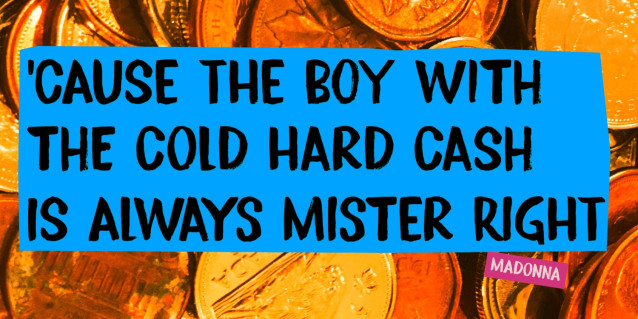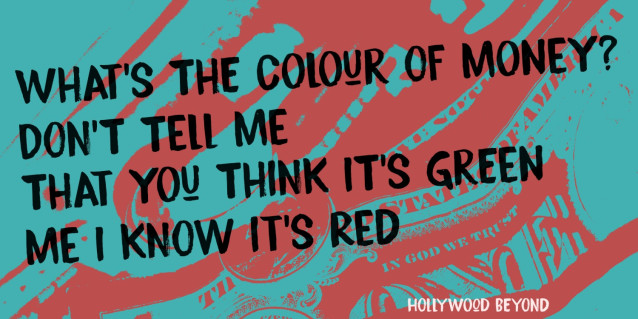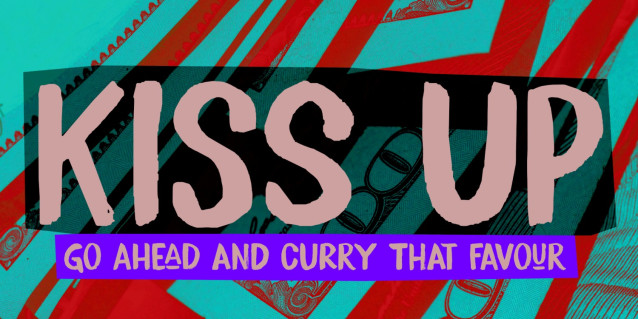
Kiss Up Font
Kiss Up font is a handmade, brush font. It will look quite good on your book cover designs, your product packaging, signage and yes, even your protest signs!
Kiss Up comes with a full set of alternates for the lower case glyphs, some extra underscored glyphs and a really nice alternative ampersand. All for you to play with!